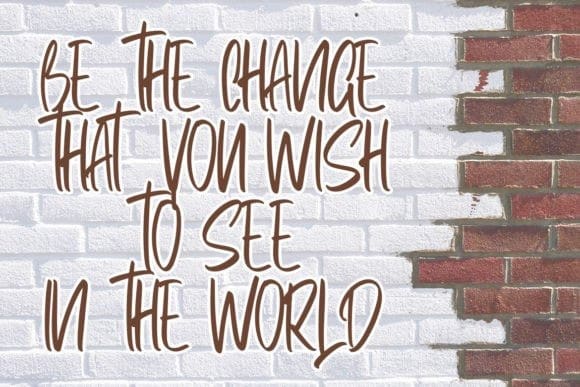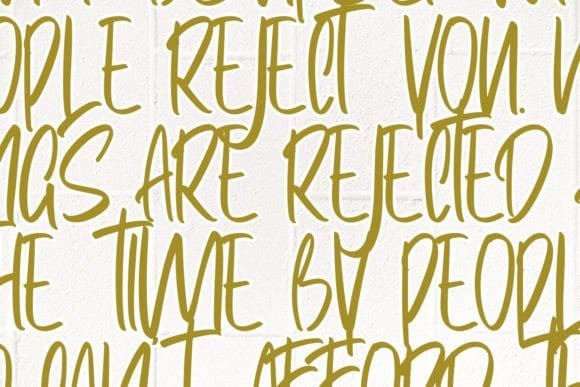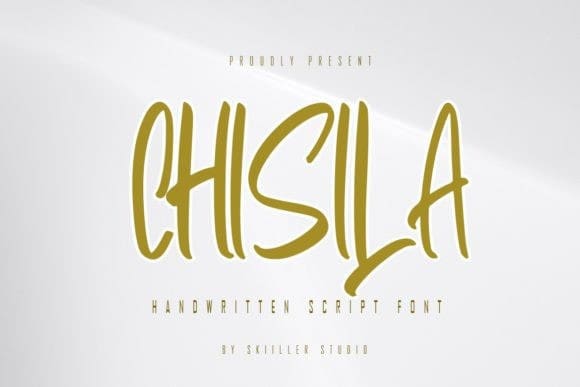
Chisila Hand Font
Chisila Hand Font is a modern and brushed handwritten font, crafted to give your headlines and logotype projects a stylish touch. This font reads as strong, confident, and dynamic and can add tons of urban character to your designs.